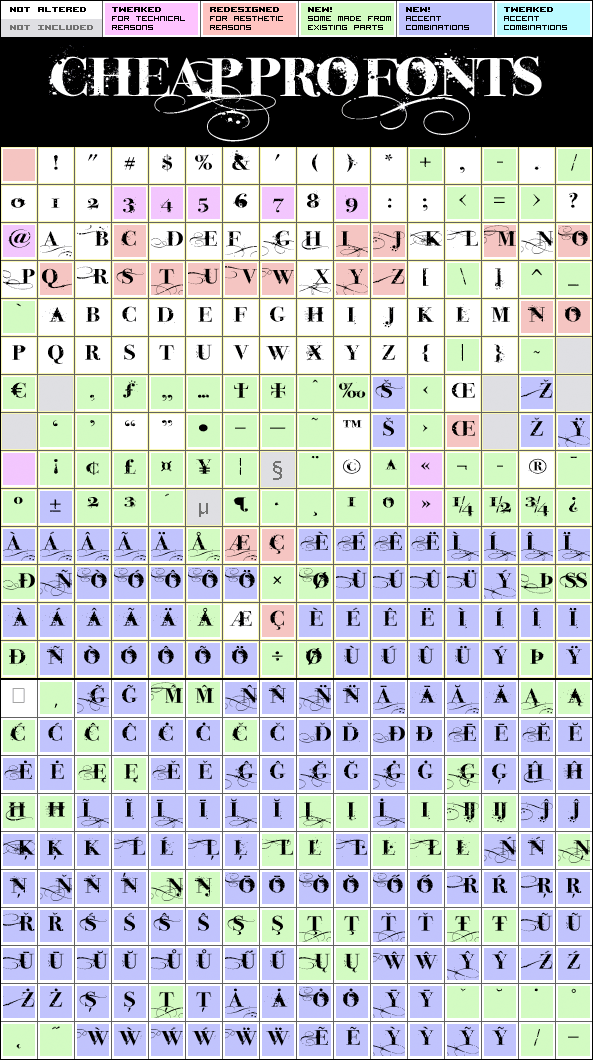
Inked God Pro
Inked God Pro by Guillaume Séguin
Guillaume Séguin
375 glyphs!
(97 in original)
165 class kernpairs
= 12243 kerning pairs
(none in original)
This font has that grungy, gritty look, and combines it with some elegant swirls. Weird and wonderful. :)
I have added swirls and decorations to ALL the uppercase letters that did not have them, so there are now wider possibilities to add interesting decorations to your composition. In addition to the expanded language support, of course.
Inked God Pro is a professionally reworked font that contains an extended character set for setting text in 65 languages requiring more than the basic A-Z!